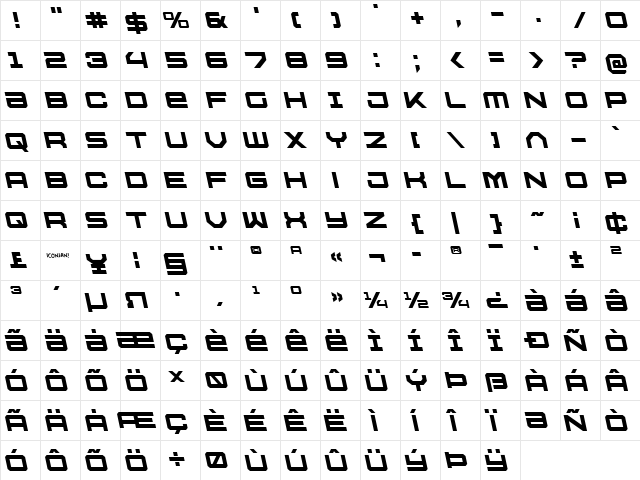
U.S.S. Dallas Leftalic Italic
Design Context for U.S.S. Dallas Leftalic Typeface
U.S.S. Dallas Leftalic takes a measured approach to typography — its balanced proportions and neutral character make it a reliable workhorse for both digital and print work. The slanted form adds forward momentum and visual energy.
Pro Tip: Use U.S.S. Dallas Leftalic for emphasis, pull quotes, and subheadings where its slanted energy can add rhythm to the layout.